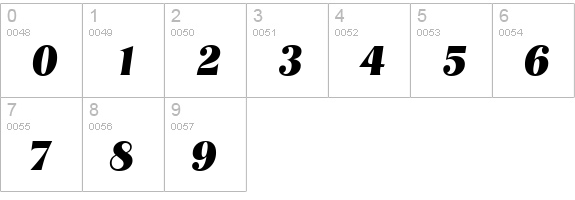
NashvilleSerial-Xbold-Italic is a distinctive, italic variant in the NashvilleSerial typeface family \xE2\x80\x94 well suited to design and typography projects.
NashvilleSerial-Xbold-Italic is a striking and bold font that exudes sophistication and modernity. With its unique italicized design, this font is perfect for making a statement in any project. The sleek lines and sharp edges of NashvilleSerial-Xbold-Italic add a touch of elegance and professionalism to your text. What makes NashvilleSerial-Xbold-Italic even more appealing is that it is available for free download at FontsMarket.com. This means you can easily access this eye-catching font without any cost, making it a valuable addition to your font collection. Whether you're designing a poster, logo, or website, NashvilleSerial-Xbold-Italic will elevate your work with its distinctive style and flair. Don't miss out on the opportunity to enhance your designs with NashvilleSerial-Xbold-Italic. Download this impressive font for free today and see how it can take your projects to the next level.